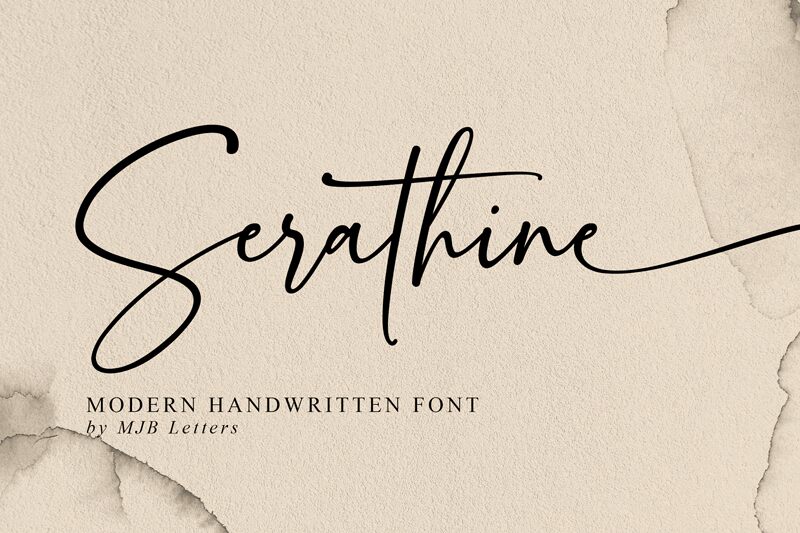
Serathine is a light calligraphic script font designed by MJB Letters. This free calligraphic font has a very classic appearance inspired by handwritten signatures. It comes in only one style and weight which is enough for several projects. You can use Serathine font for logotypes, branding, wedding invitations, cards, quotes, posters and social media posts.